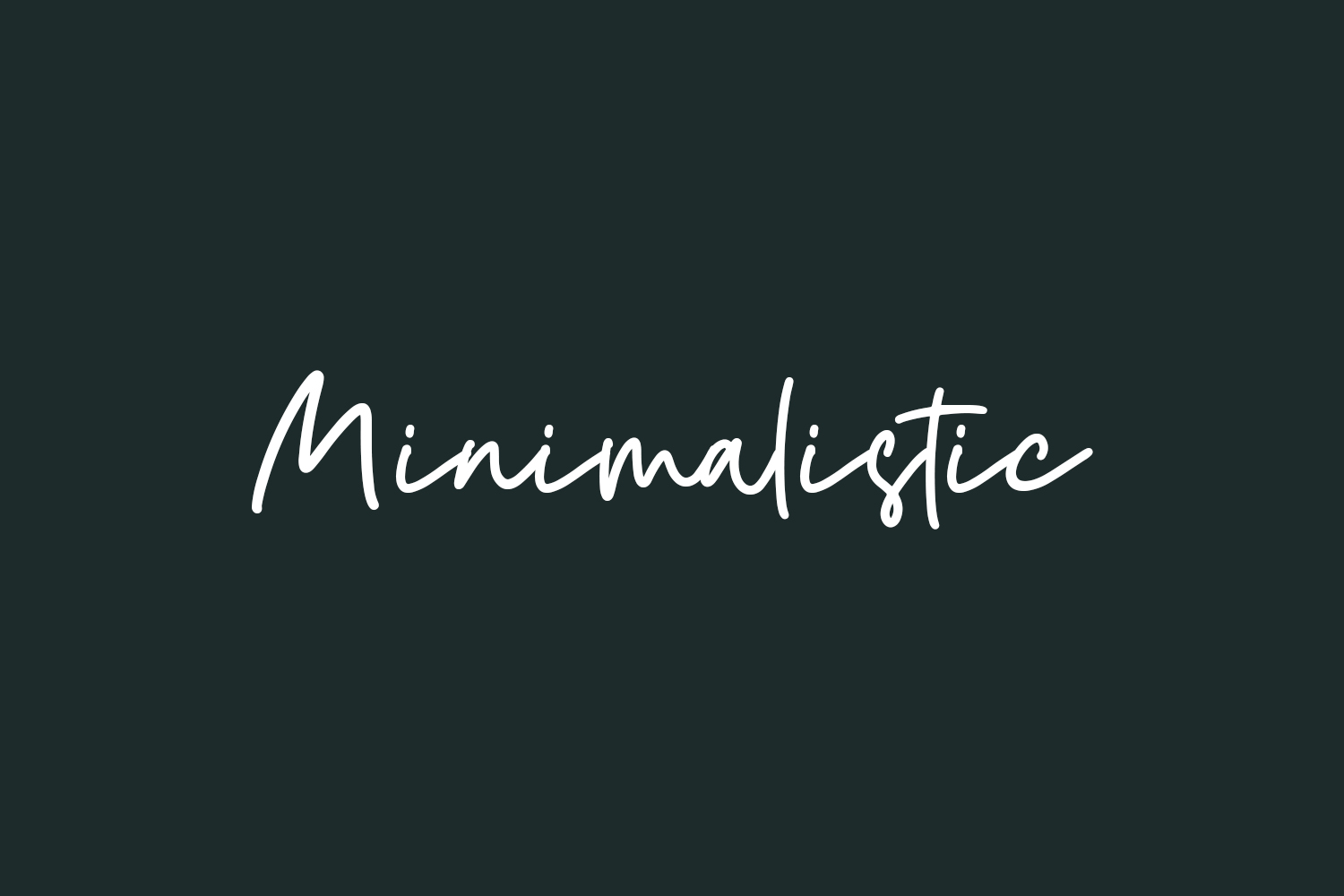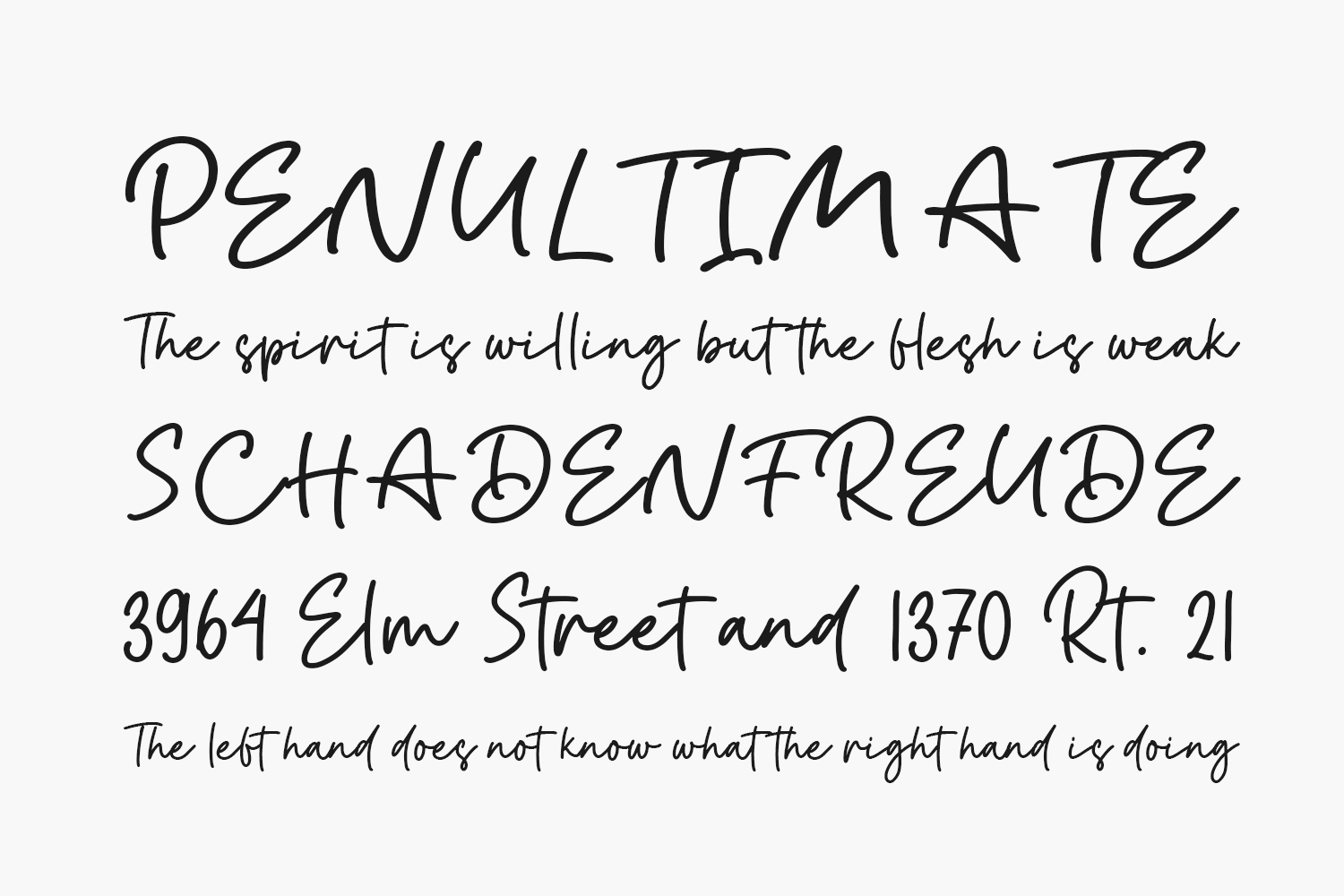
Minimalistic Free Font is a relaxed, stylish, and delicate script font. Whatever the topic, this font will be a wonderful asset to your font library, as it has the potential to enhance any creation. Minimalistic Free Font was designed by Fikryal studio and is free for personal use only. Please purchase the full version for commercial use.